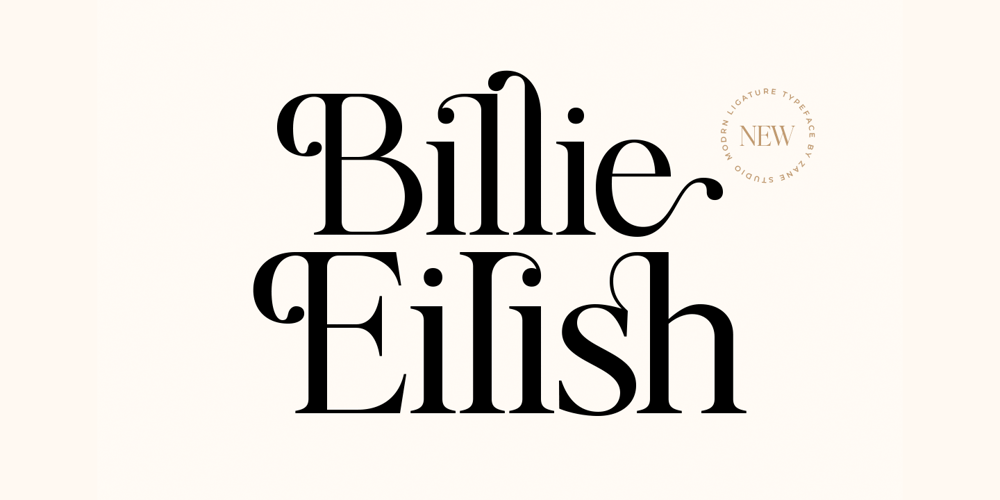
Billie Eilish Font Family was designed by Mur Zani and published by Zane Studio. Billie Eilish contains 1 styles and family package options. Introducing the new Billie Eilish Modern Ligature Serif!!!Billie Eilish is a modern, elegant and classy serif typeface, best used as a display for headings, logos, branding, magazines, product packaging and invitations.Billie Eilish comes with clean lines and smooth curves that give any project an extra touch of class.Billie Eilish is built with OpenType features and includes 136 ligatures, alternatives, numbers, punctuation, and also supports other languages.If there’s anything else you’re not sure about, feel free to message me ๐ That’s it! Have fun using Sparkling Modern Serif Ligatures!!!Feel free to follow, like and share. Thank you so much for checking out my shop!